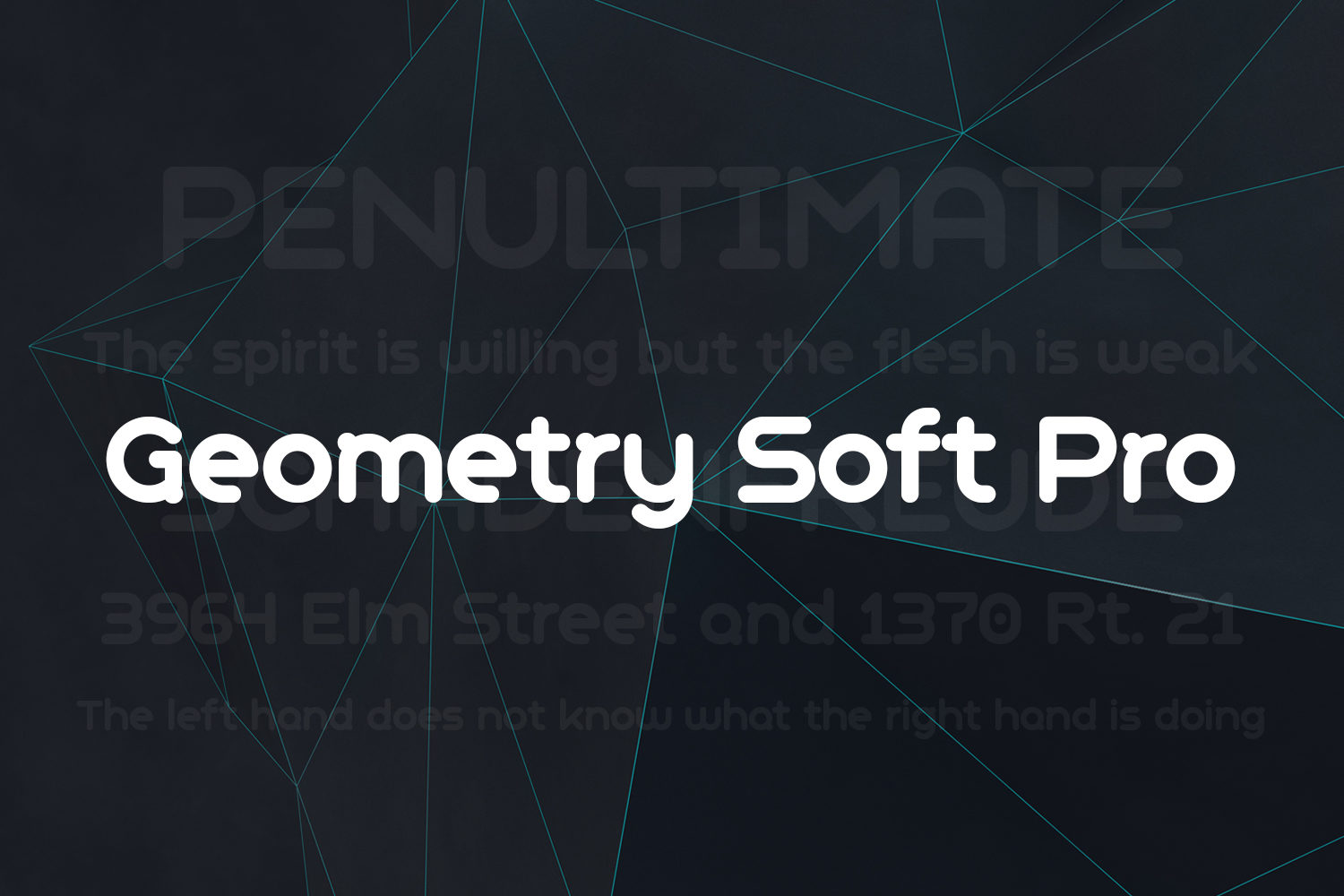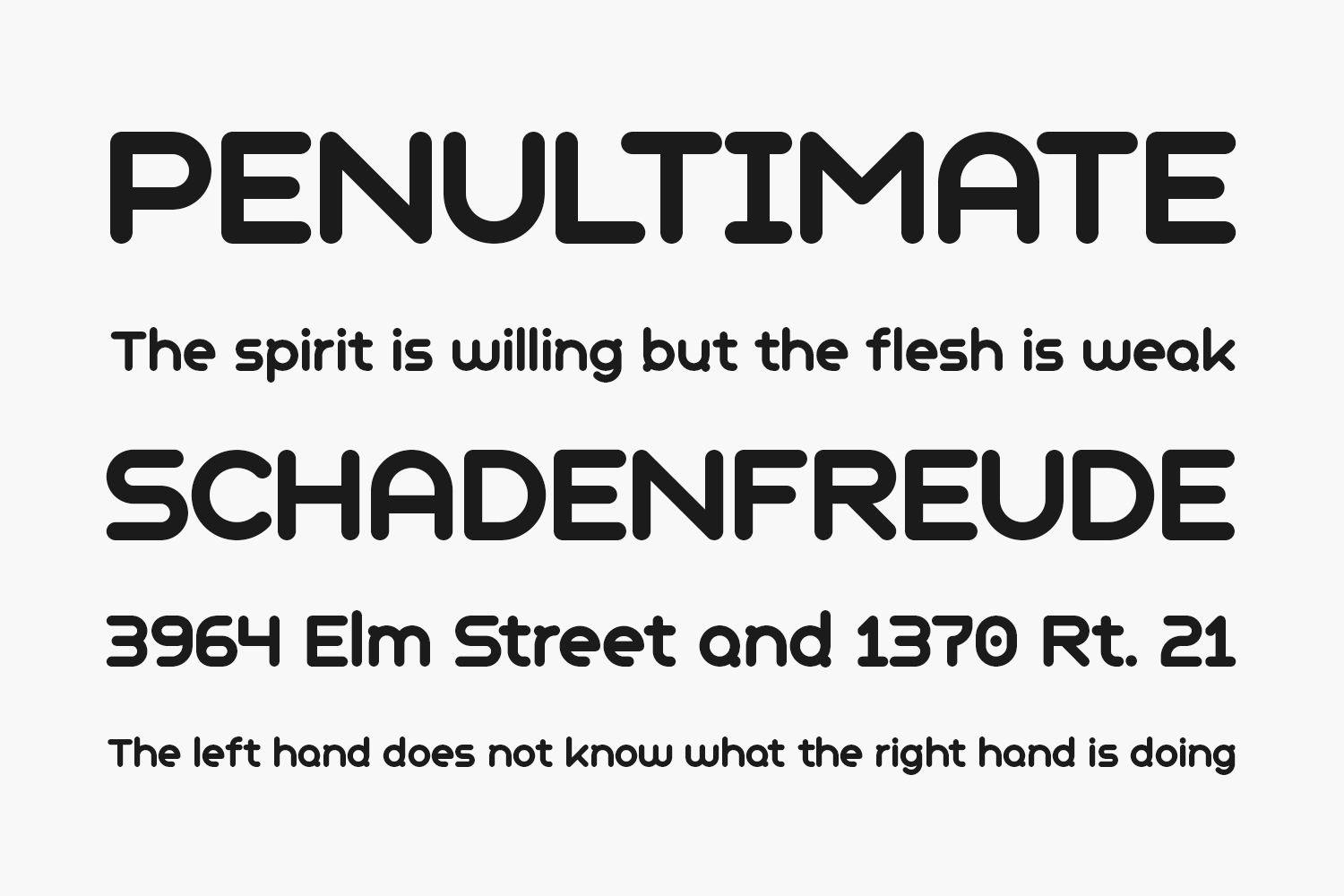
Geometry Soft Pro family has been designed to be the final word in purely geometric fonts and is developed by CheapProFonts. Geometry Soft Pro is distributed under CheapProFonts Font License.